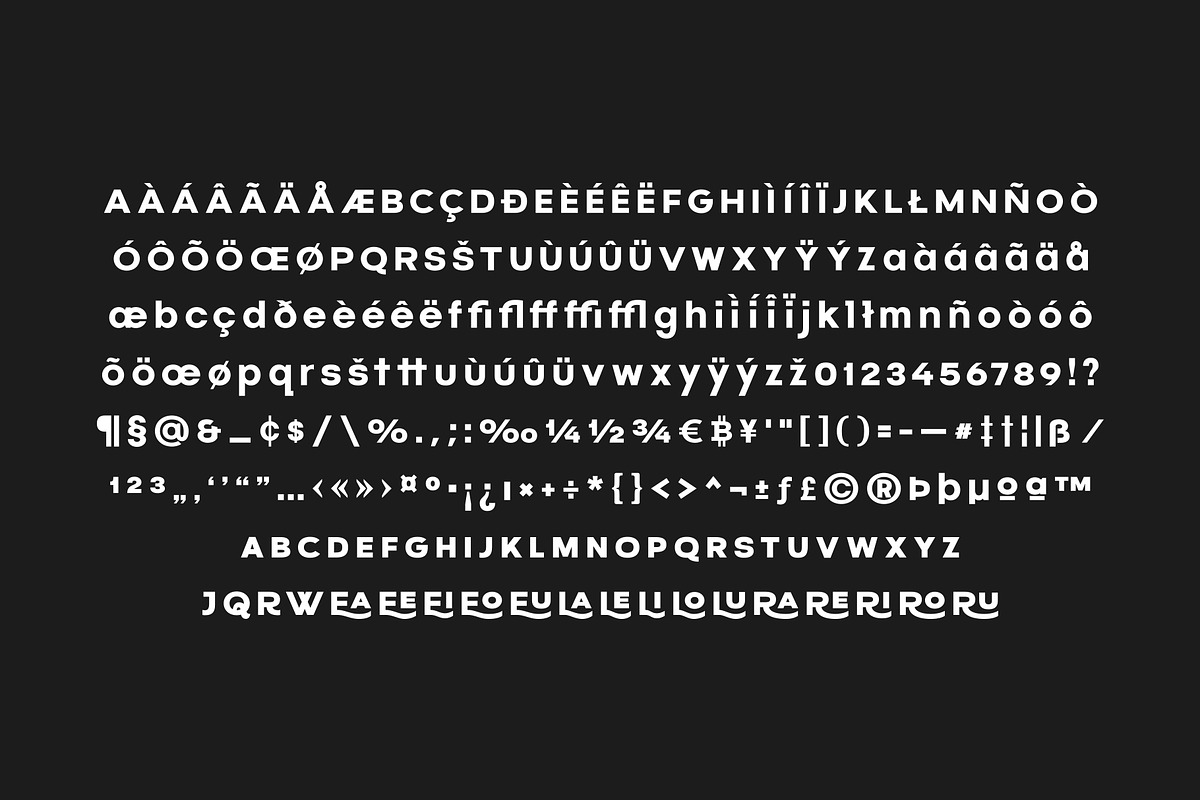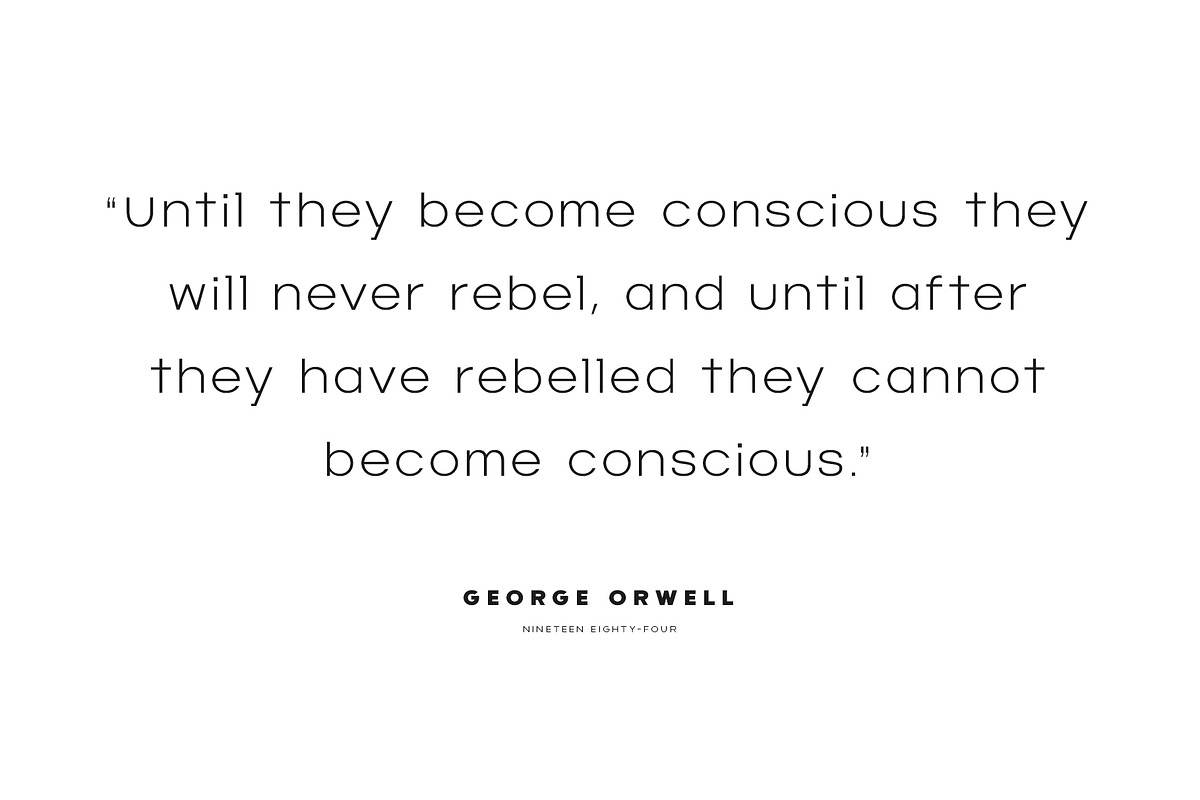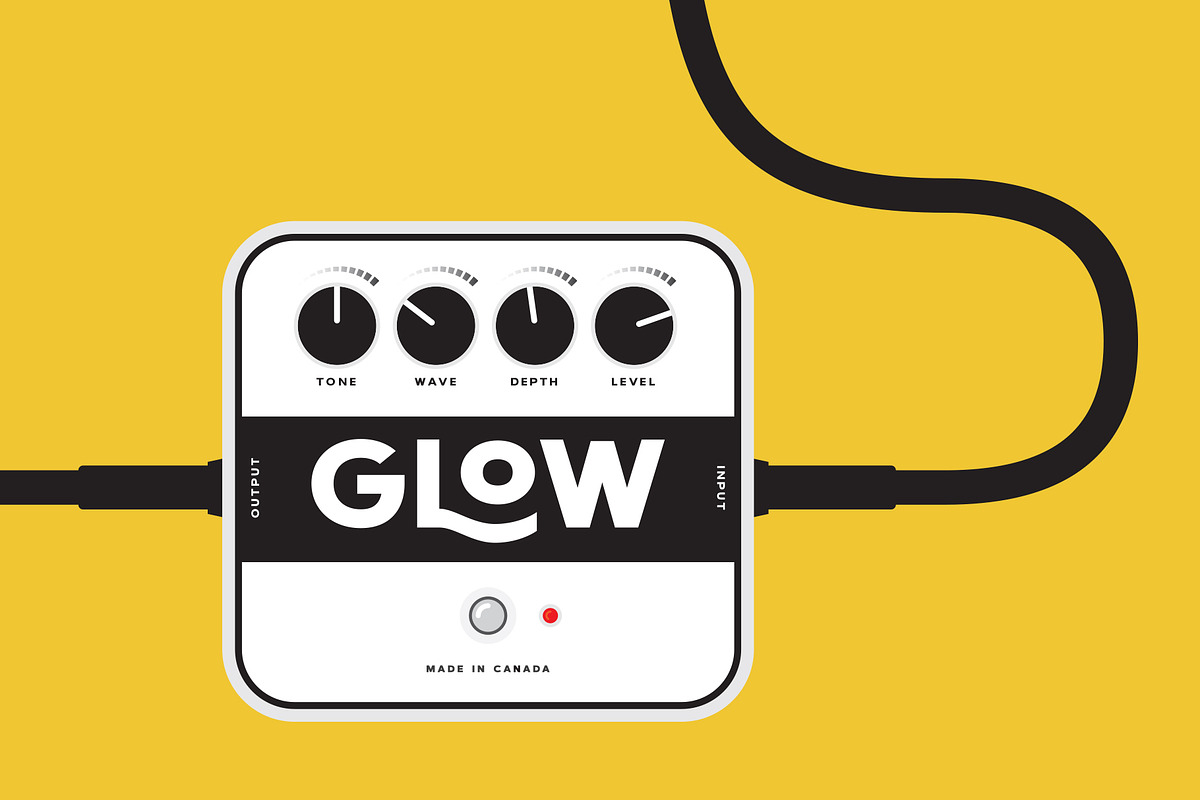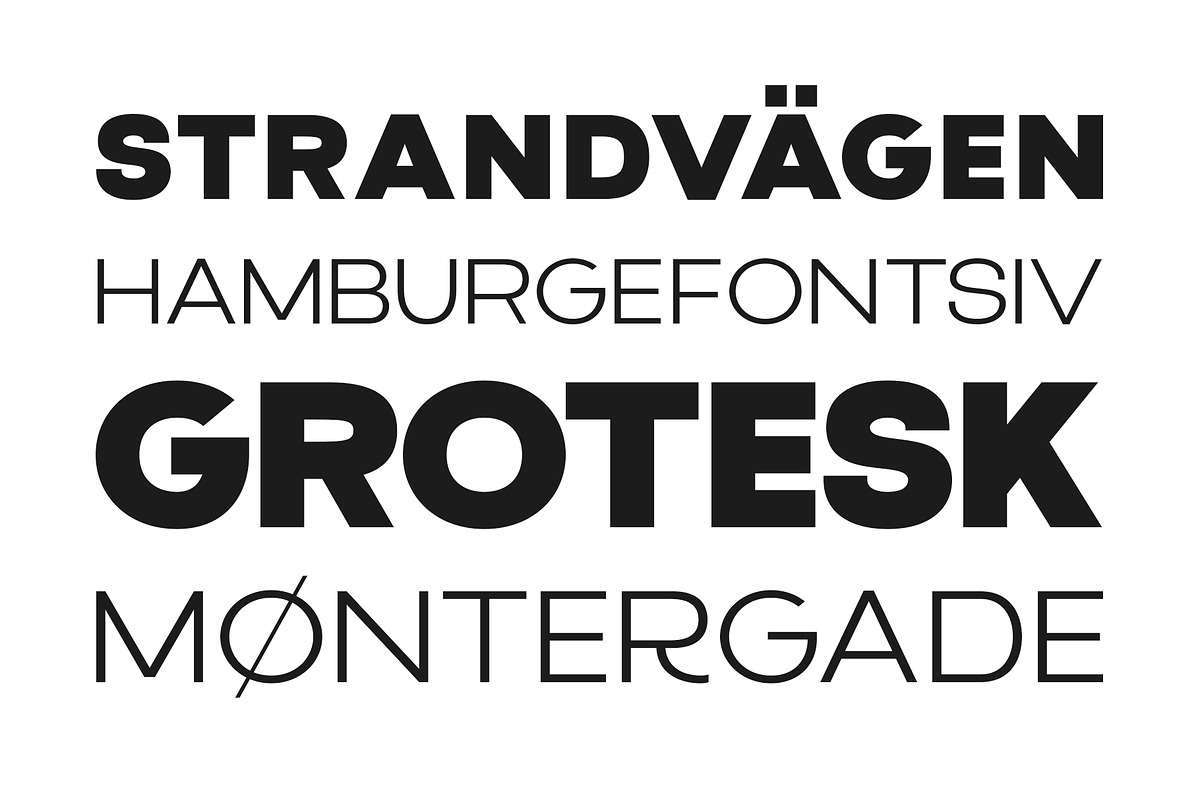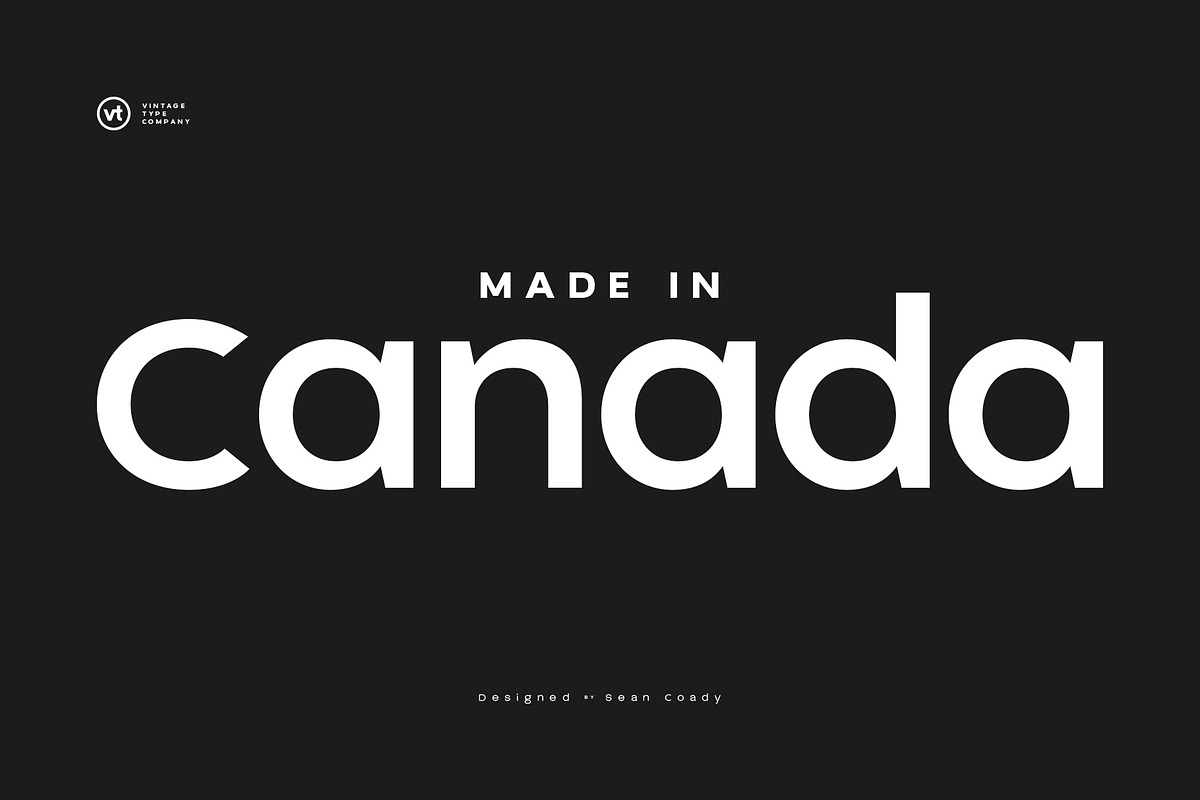
Grindhaus Sans
Grindhaus Sans is a cross between a geometric & humanist grotesk, inspired by the vintage grotesk typography of the 19th century. A style that was popular on shop windows, book covers, and minimalist labelling.
The letterforms in Grindhaus Sans have slightly varying stroke widths for higher legibility, adobe latin 1 language support, five weights, and unique stylistic alternates & ligatures.